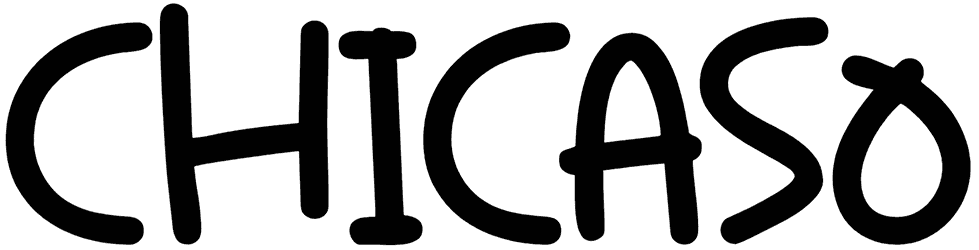
Chicaso Font
Chicaso does a great job mimicking handwritten letters and has the right kerning to make your writing stand out. With this script font, you can create a lovely feeling in your report that will easily win the audience’s t…
Chicaso does a great job mimicking handwritten letters and has the right kerning to make your writing stand out. With this script font, you can create a lovely feeling in your report that will easily win the audience’s trust.
So if you are looking for a handwritten font that exudes a sense of intimacy and playfulness and can bring powerful charisma to display texts in posters and advertisements, ignore the lack of lowercase and add Chicaso to the collection.